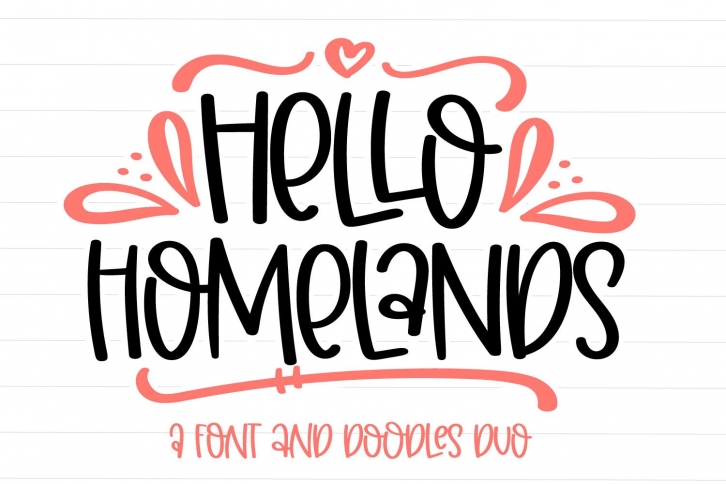
Hello Homelands is a great font that was designed by Justina Tracy. Imagine the amount of combinations you can create using this font! The archive is 15.35 MB and it was released on May 4, 2020. Hello Homelands looks beautiful on wedding invitations, greeting cards, logos, posters, labels, t-shirt designs, logos, business cards and is perfect for use in ink or watercolor works, fashion, magazines, packaging and food menus, children's books and more!